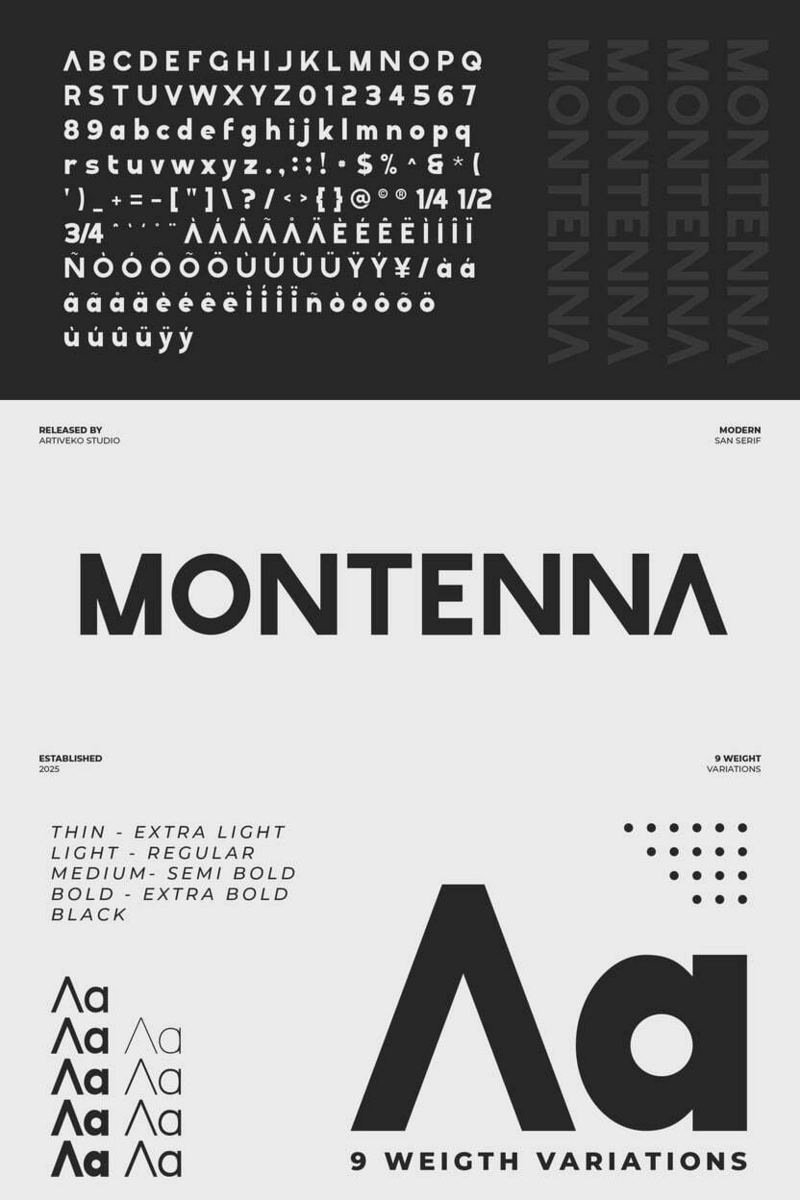
Unlocking Montenna's Playful Power: A How-To Guide for Engaging Web Editorial Layouts
Hey there, fellow pixel whisperer! Ever felt like your design needed a little oomph, a splash of personality that just makes people smile? Well, let me introduce myself. I'm Montenna, and I'm not just another font. I'm here to bring genuine warmth and playful energy directly to your web designs, built with web designers and developers like you in mind.
Think of me as that friend who always brings the good vibes to the party. In the fast-paced world of web design, where every scroll counts, you need more than just readability. You need connection. I thrive in those spaces where you want to invite your audience in, not just inform them. Imagine a tech blog post about quirky gadgets – I'm there, making every heading pop. Or a developer's personal portfolio, showing off their creative side – I'm the headline, winking at visitors. I’m all about crafting experiences that feel human, approachable, and, dare I say, fun.
My secret sauce? It's my playful energy, baked into every curve and line. I'm not loud or outlandish; I'm subtly vibrant. I tackle the challenge of making digital content feel warm and inviting, combating the coldness that can sometimes creep into screens. I bring a warmth that makes complex information feel accessible, and simple messages feel memorable. With Montenna, you're not just setting type; you're setting a mood. I solve the 'boring text' problem by injecting a sense of joy and approachability, perfect for those moments when you want to truly connect with your user, guiding them through a user interface or a compelling article with a friendly nudge.
Montenna: Your Pixels, Playfully Personal.
Where do I truly shine?* Hero Headers: For a landing page that wants to instantly convey a friendly, welcoming brand.* Call-to-Action Buttons: Making clicks feel less like a command and more like an invitation.* Blog Post Titles & Subheadings: Especially for lifestyle, tech, or creative blogs, Montenna makes content feel digestible and engaging.* Email Newsletter Introductions: Setting a warm, conversational tone right from the opening lines.* Interactive UI Elements: Think quizzes, onboarding flows, or success messages – I add that indispensable human touch.* Personal Portfolios: When a web developer wants to show their personality beyond just code.* Educational Platforms: Making learning feel less intimidating and more enjoyable with Montenna.